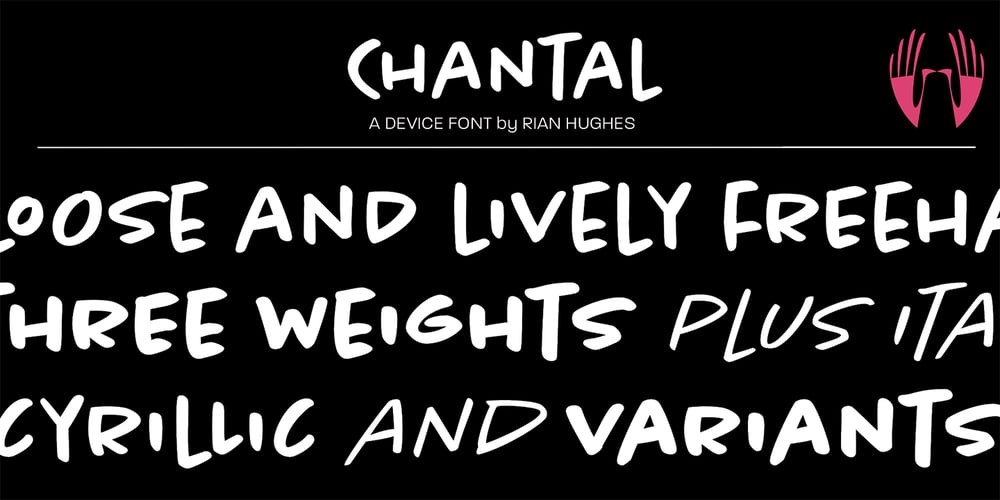
Chantal
Chantal font
Chantal Font Family was designed by Rian Hughes and published by Device. Chantal contains 9 styles and family package options. A loose, casual felt-pen script, Chantal comes in three weights plus italics, and a Cyrillic version too. Alternate versions are available in the upper and lower case keys, so settings can be customised according to taste. Chantal communicates a hand-drawn light touch with character. Originally designed to letter the RoboHunter series that Peter Hogan and Rian Hughes produced for the comic 2000AD.